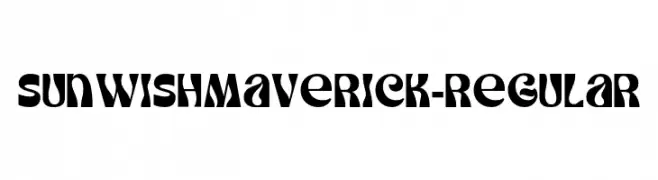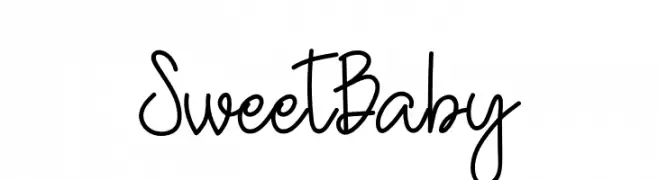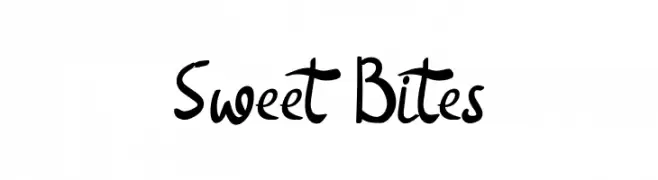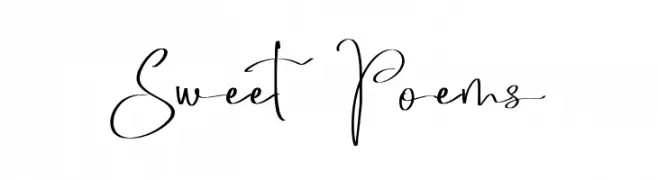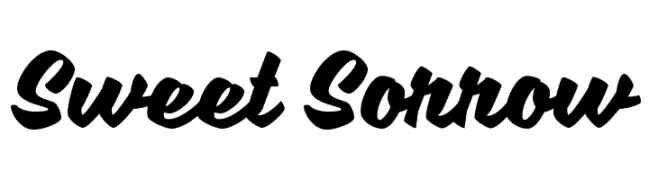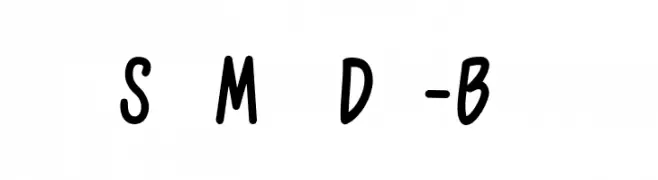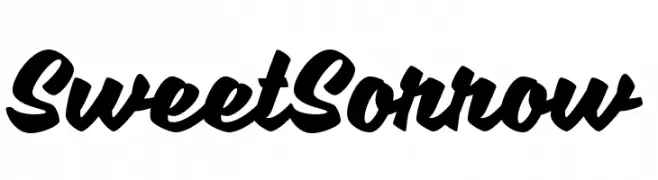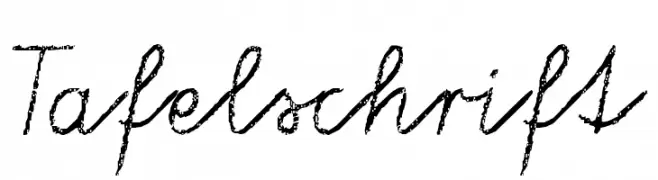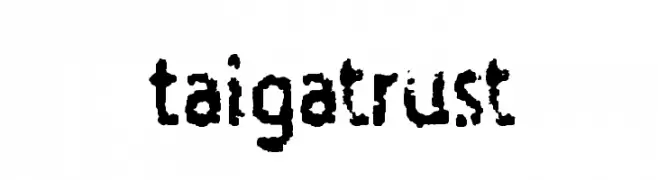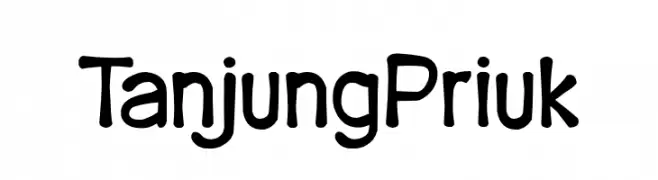
( Fonts by Arterfak Project )
A bold, dynamic font with sharp angles and smooth curves, perfect for impactful designs.
( Fonts by Mozarella Art )
A bold, playful handwritten font with thick, rounded strokes.
A playful, handwritten font with a whimsical and casual style.
A playful, handwritten font with smooth, flowing lines and a casual style.
An elegant, flowing script font with a whimsical, handwritten calligraphy style.
( Fonts by artimasa studio )
A bold, dynamic script font with fluid, cursive letterforms.
( Fonts by artimasa studio )
A bold, cursive font with interconnected, flowing characters.
( Harris Darmawan - artzz90.deviantart.com/ )
A geometric, angular font with tall, narrow letterforms and a modern aesthetic.
A geometric, angular font with a futuristic and bold design.
( Fonts by Anke Arnold - www.anke-art.de )
A cursive, handwritten font with a chalk-like texture.
( bulgrin.de )
A rugged, distressed font with a hand-crafted, organic feel.
A playful, rounded font with a hand-drawn feel and consistent bold strokes.
A playful, handwritten font with bold, rounded strokes and a casual style.
A hand-drawn, playful font with irregular strokes and an artistic flair.
A futuristic, angular font with sharp, intersecting lines and a bold, dynamic style.
( Fonts by weknow - Wino S Kadir )
A geometric, angular font with intersecting lines and a bold, modern style.
( Font by Jonathan Harris - www.tattoowoo.com )
A dynamic, brushstroke-style font with an artistic and expressive flair.
A bold, modern serif font with unique curves and strong presence.
A cursive, handwritten font with elegant, flowing strokes.
A bold, hand-drawn serif font with textured, brush-like strokes.
A bold serif font with dramatic contrast and elegant style.
A playful and elegant script font with smooth, flowing curves.
A bold, handwritten font with a playful and energetic style.
( Fonts by Slenting Art )
A bold, playful font with a hand-drawn, artistic style.
( Fonts by Letter Art Studio )
A bold, playful font with exaggerated strokes and a whimsical style.
( Fonts by Sastra Ferdian - Personal-use only. For commercial use please contact owner. )
A bold, geometric font with a modern, futuristic style.
( Fonts by Hudzaifah - Personal-use only. For commercial use please contact owner. )
A playful, handwritten font with bold, rounded characters and a casual style.
( Fonts by Faris Graphic Art - Personal-use only. For commercial use please contact owner. )
A modern, geometric font with clean lines and a minimalistic style.
A modern, geometric font with clean lines and a uniform appearance.
A dynamic and expressive handwritten font with fluid, cursive letterforms.